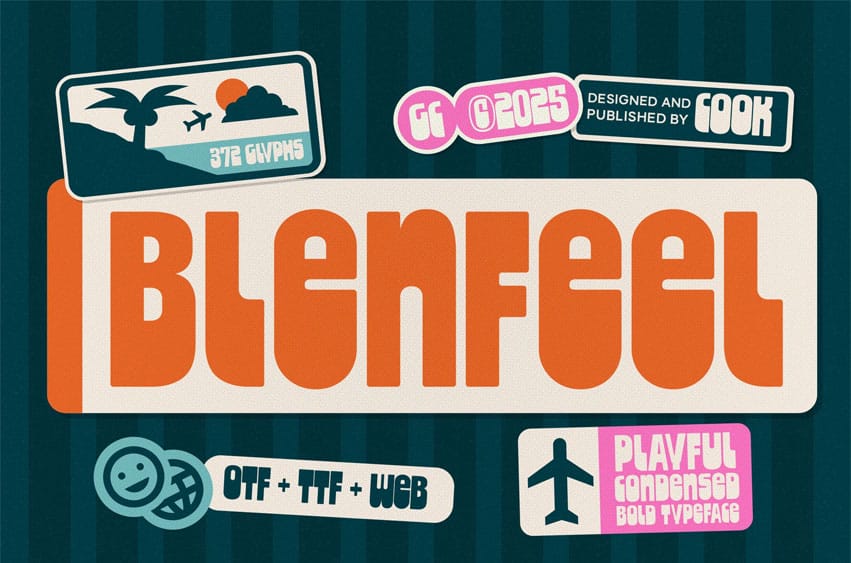
Blenfeel Font is a bold, condensed font with precise geometric forms and smooth, rounded tips. Combining playfulness with bold character, it’s perfect for posters, headlines, branding, product design, and any project needing a distinctive look.
It is perfect for headlines, logotypes, magazines, packaging, quotes, movies, games, cover albums, book covers, and flyers. It’s a perfect solution for creating eye-catching designs that stand out in any context.